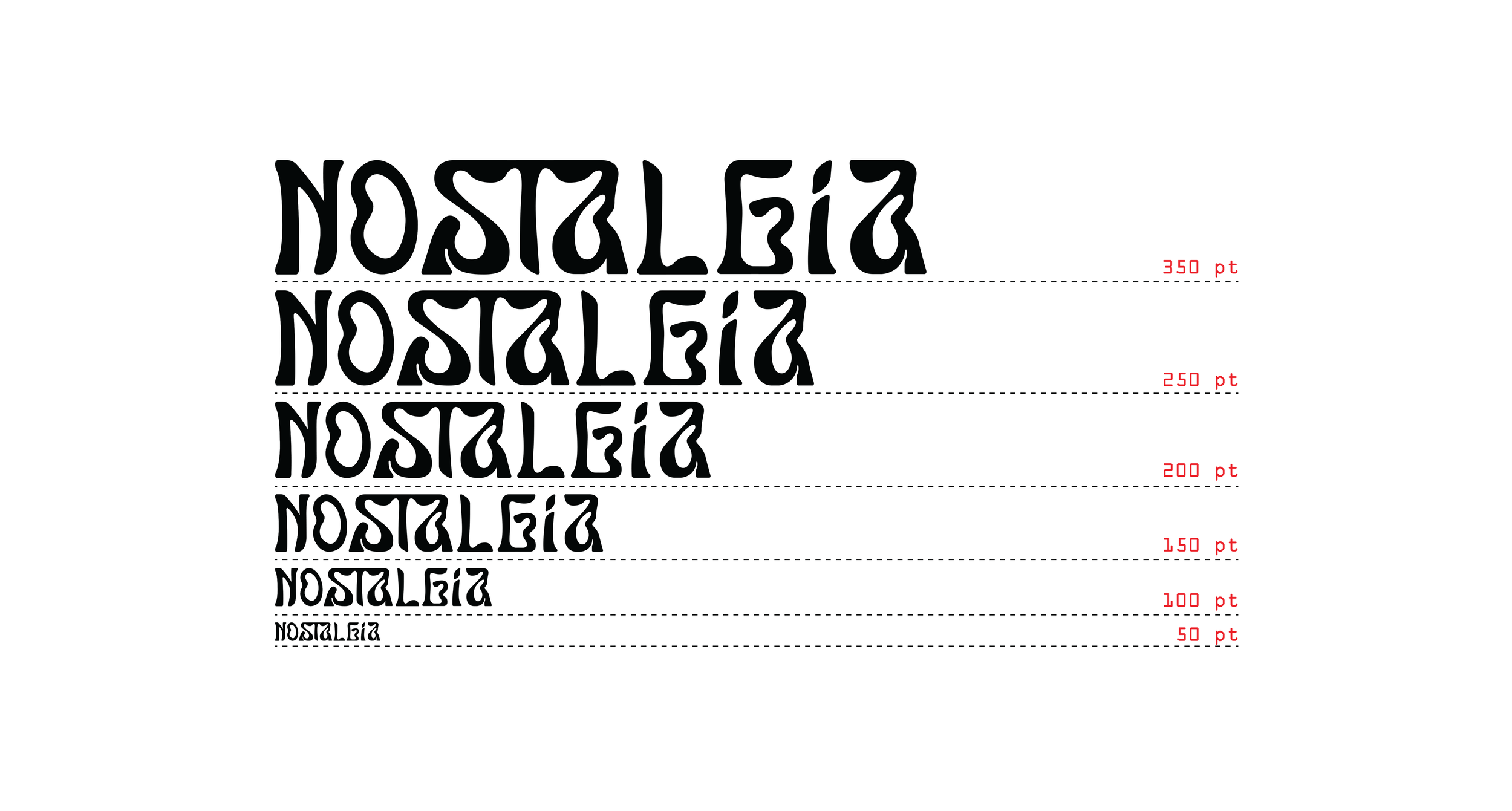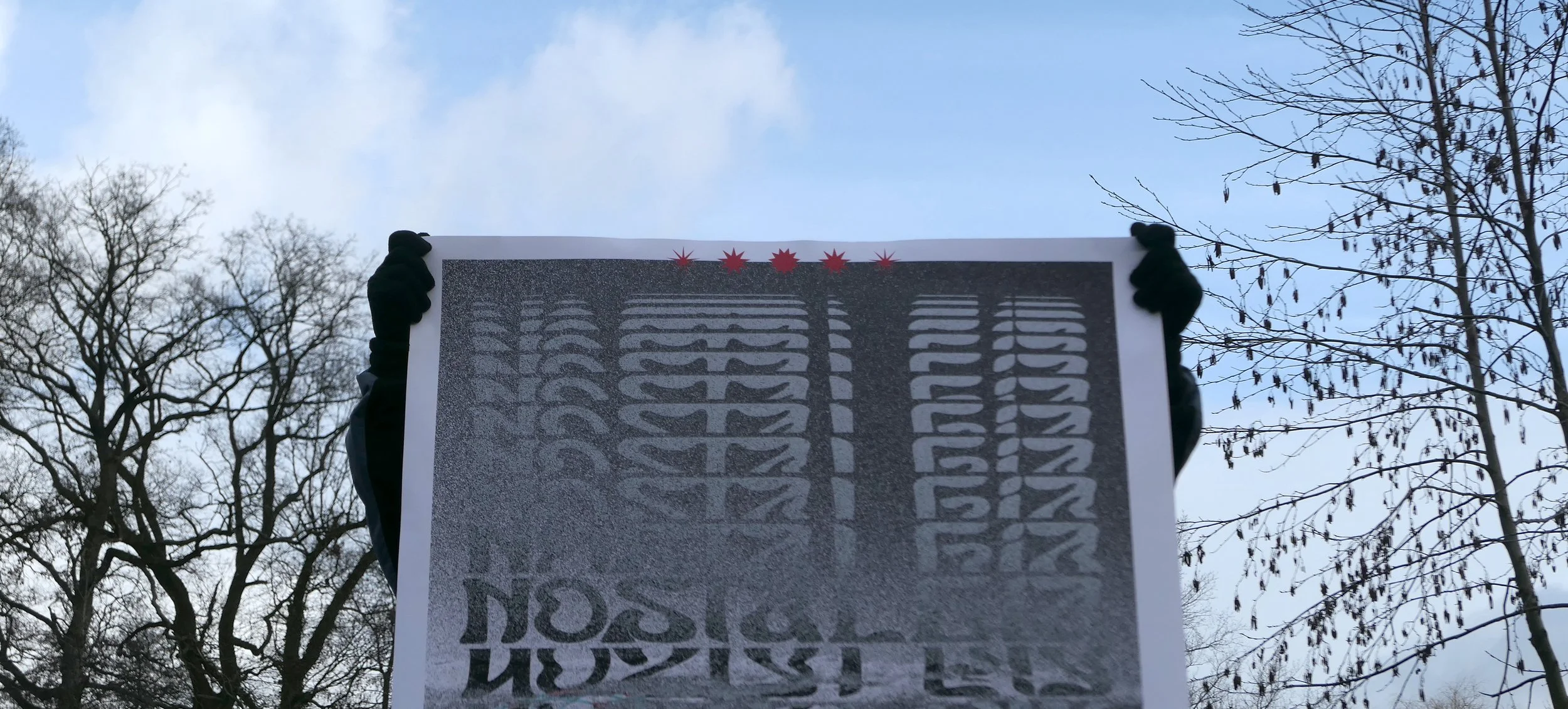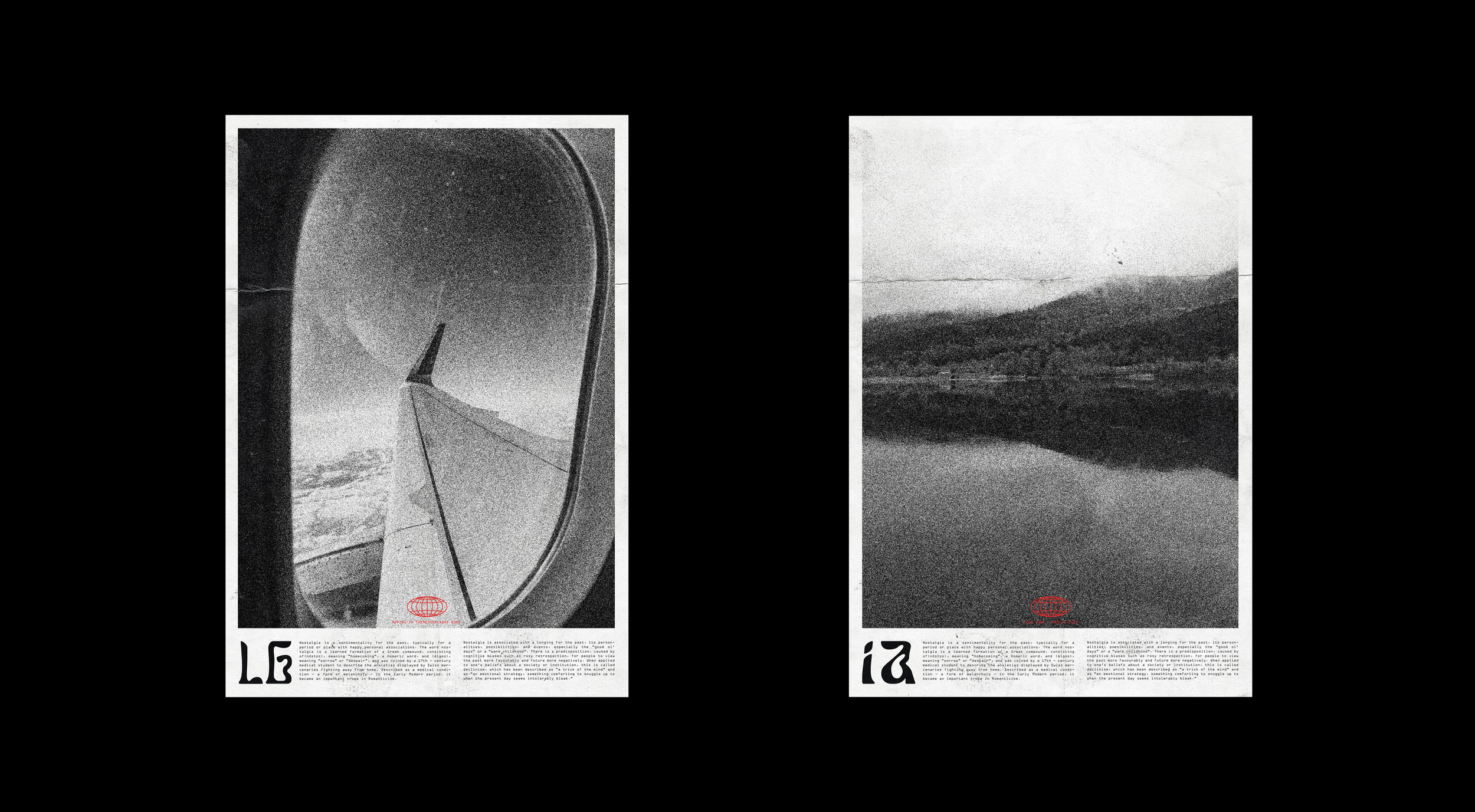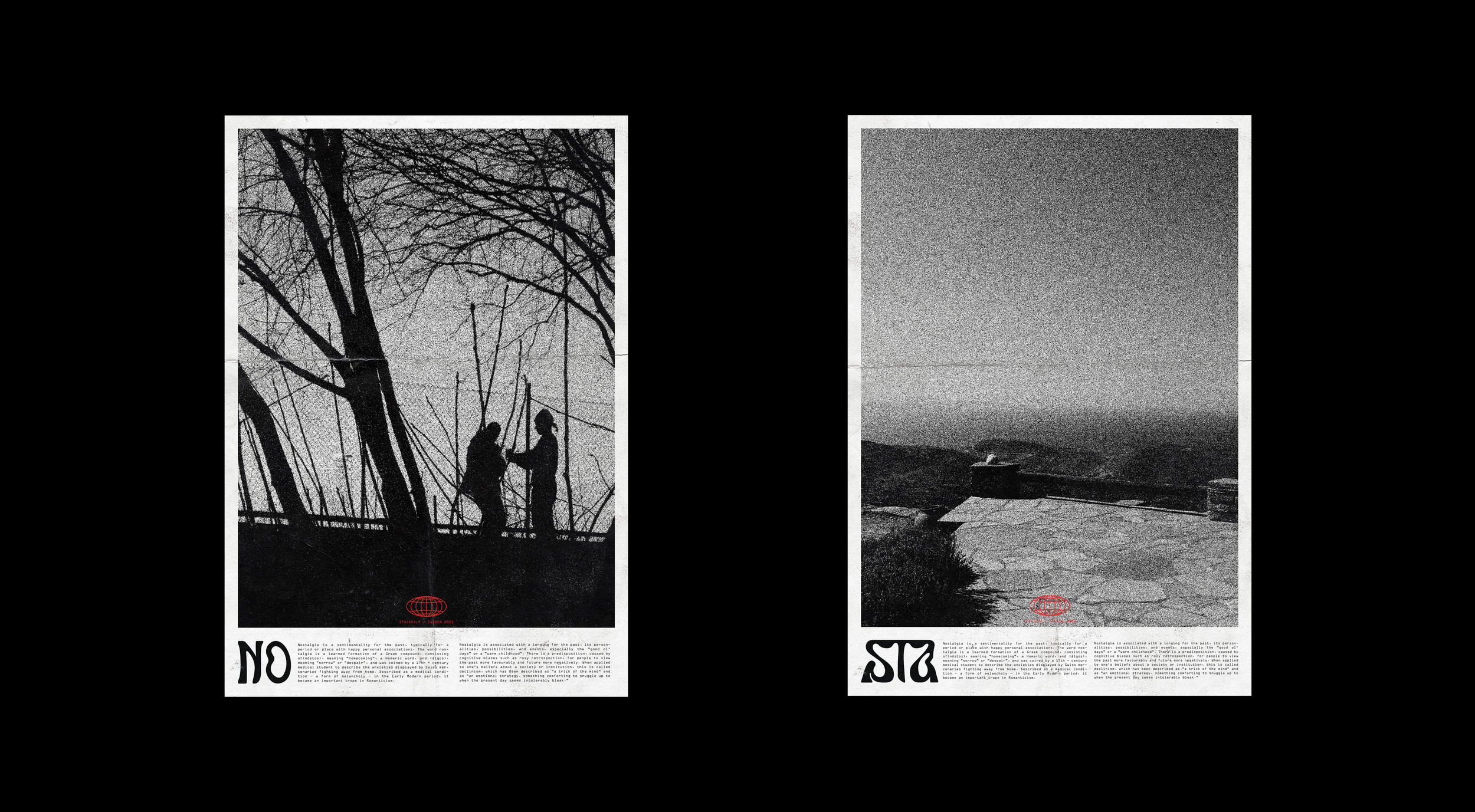
Nostalgia Typeface
Display Retro Typeface
It’s a premium quality bold font / retro and funky display typeface with lowercase and uppercase letters. Inspired from the mid/70s with modern twist style, is simply perfect and gives you the pleasure to work. Nostalgia is a sentimentality for the past, typically for a period or place with happy personal associations.
The word nostalgia is a learned formation of a Greek compound, consisting of (nóstos), meaning "homecoming", a Homeric word, and (álgos), meaning "sorrow" or "despair", and was coined by a 17th century medical student to describe the anxieties displayed by Swiss mercenaries fighting away from home. Described as a medical condition a form of melancholy in the Early Modern period, it became an important trope in Romanticism. Nostalgia is associated with a longing for the past, its personalities, possibilities, and events, especially the "good ol' days" or a "warm childhood".
There is a predisposition, caused by cognitive biases such as rosy retrospection, for people to view the past more favourably and future more negatively. When applied to one's beliefs about a society or institution, this is called declinism, which has been described as "a trick of the mind" and as "an emotional strategy, something comforting to snuggle up to when the present day seems intolerably bleak."